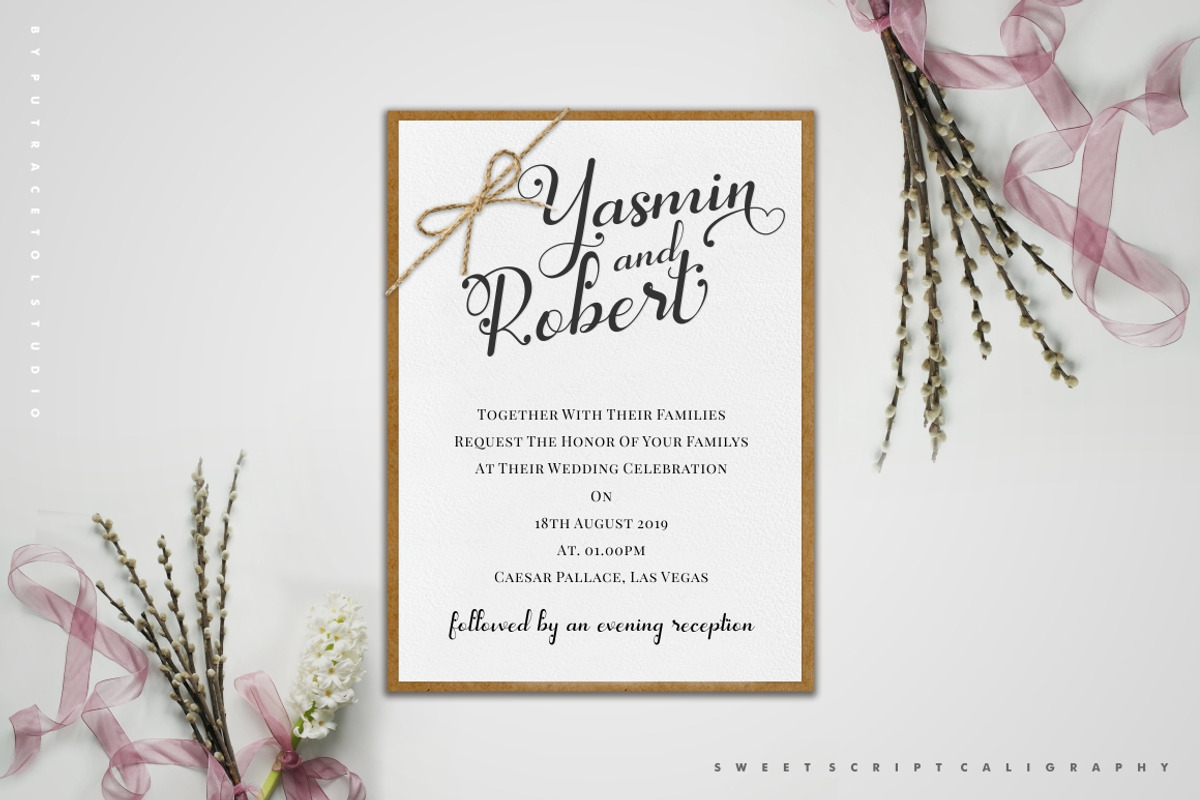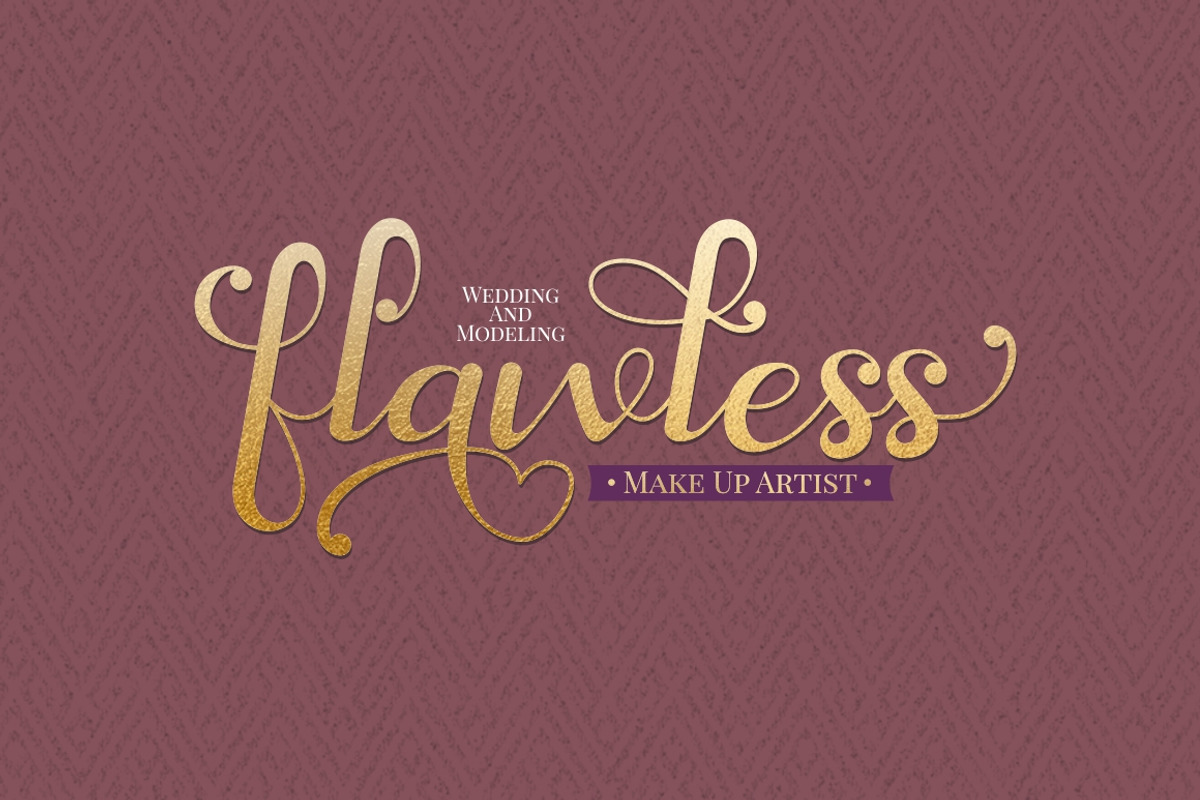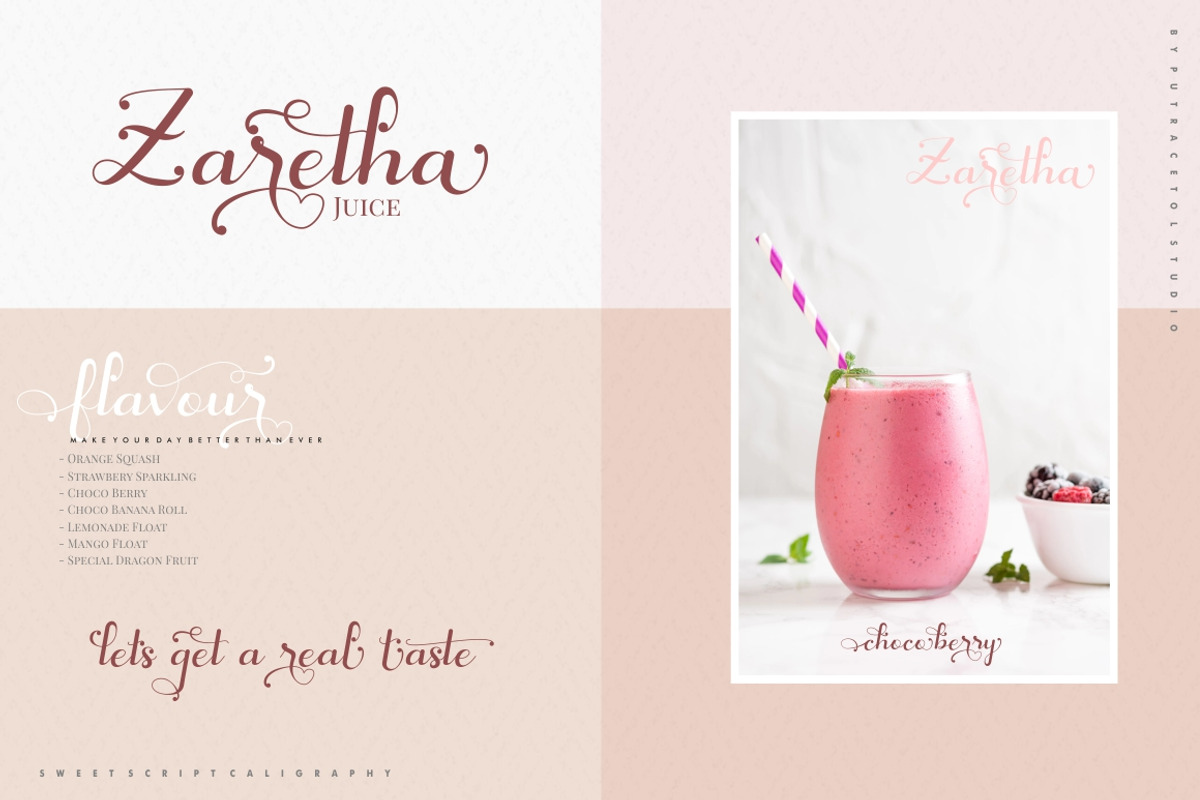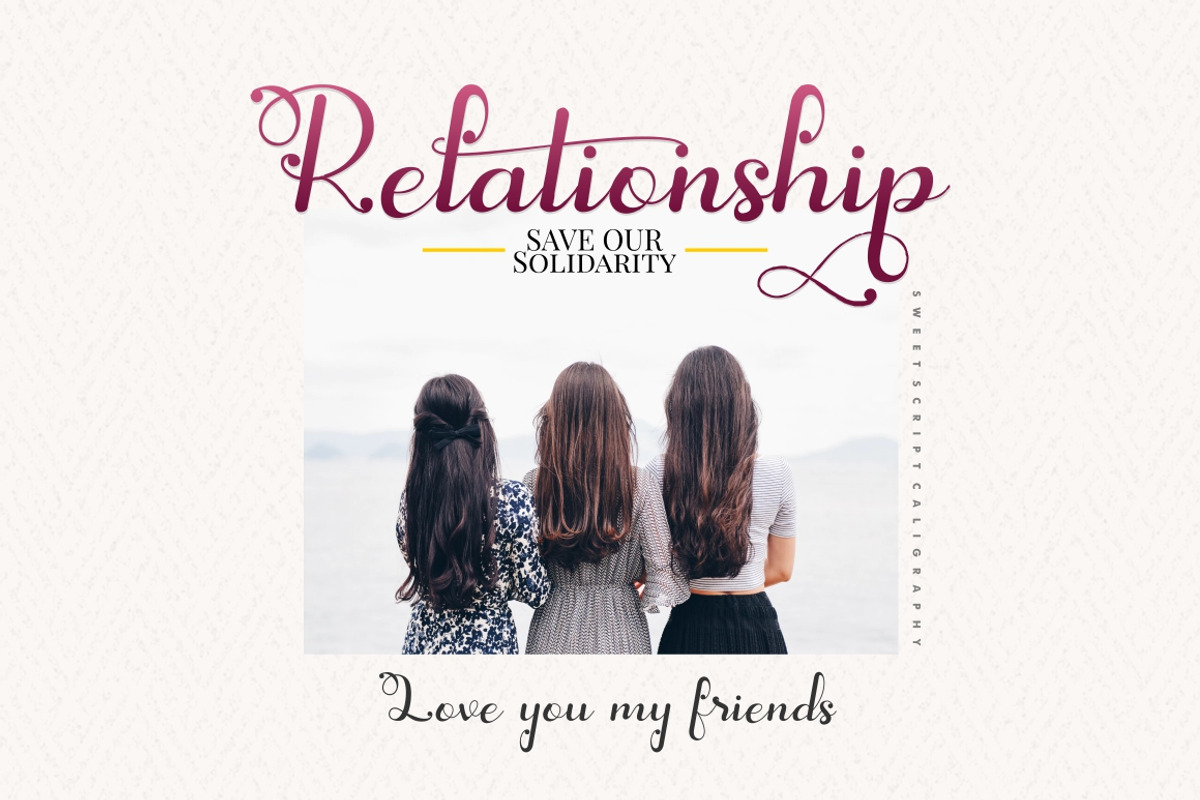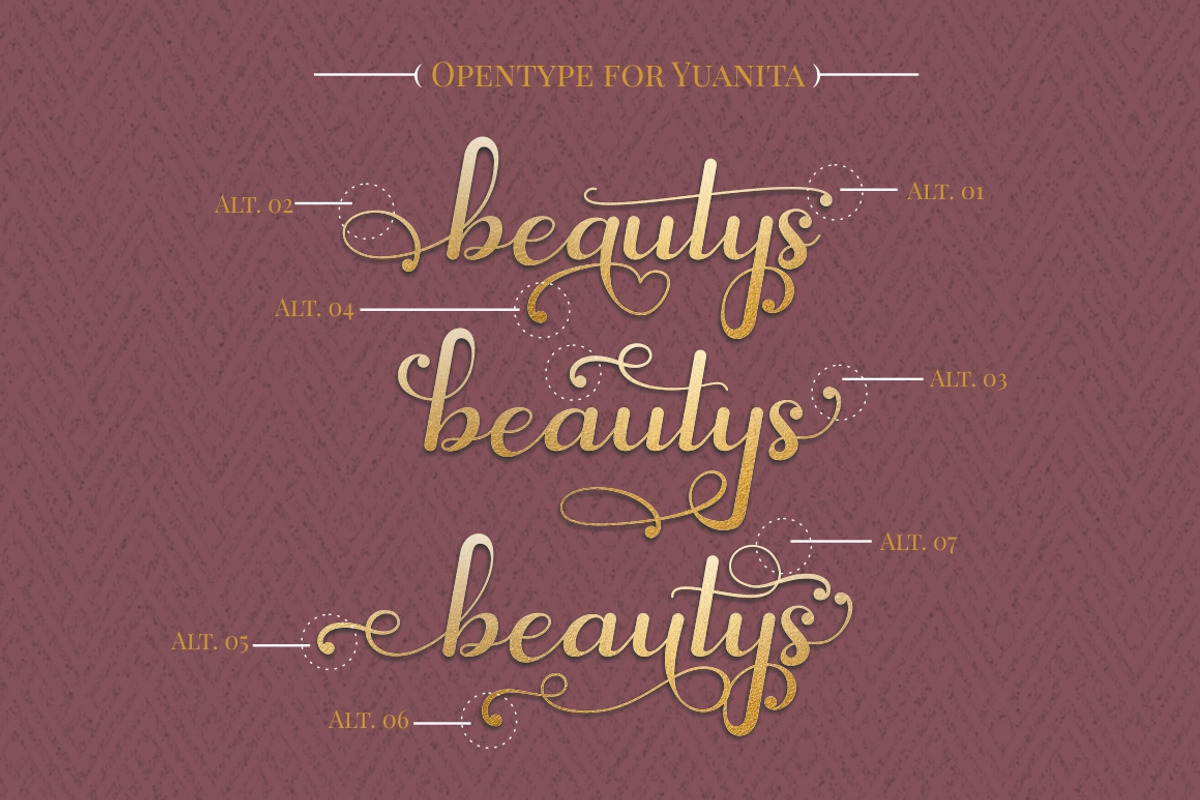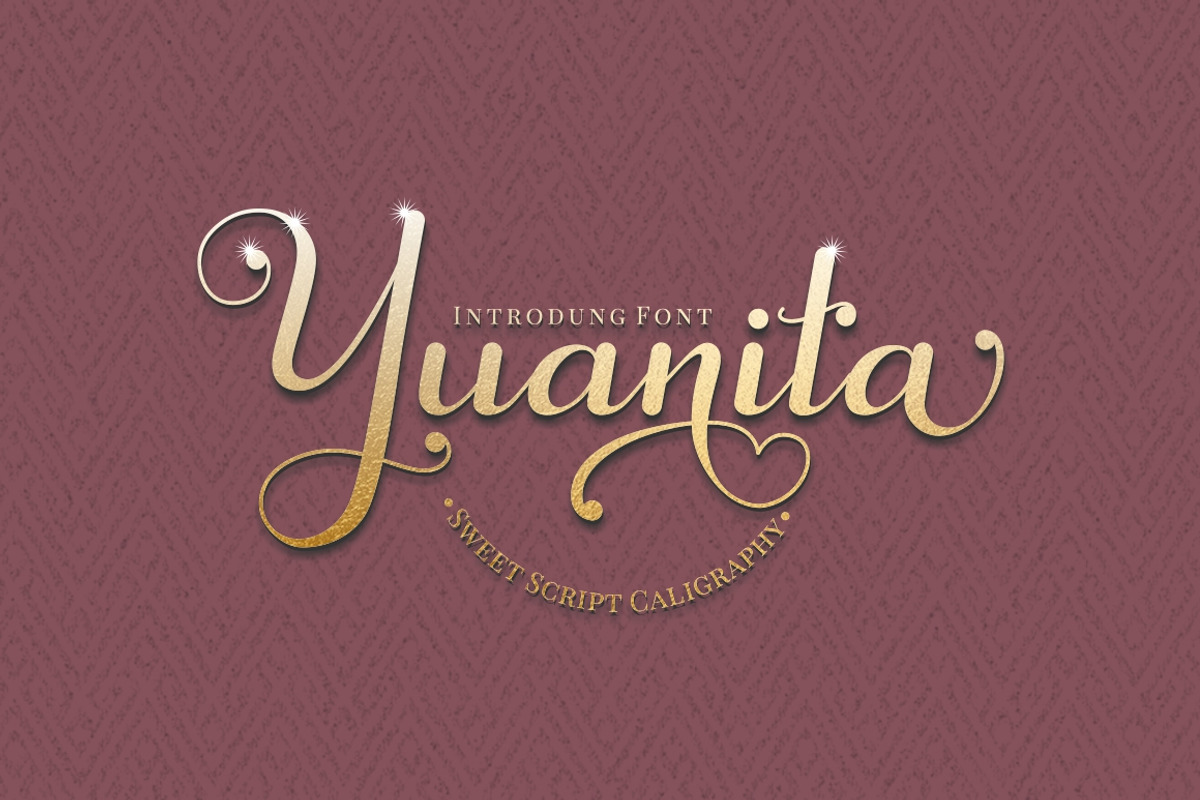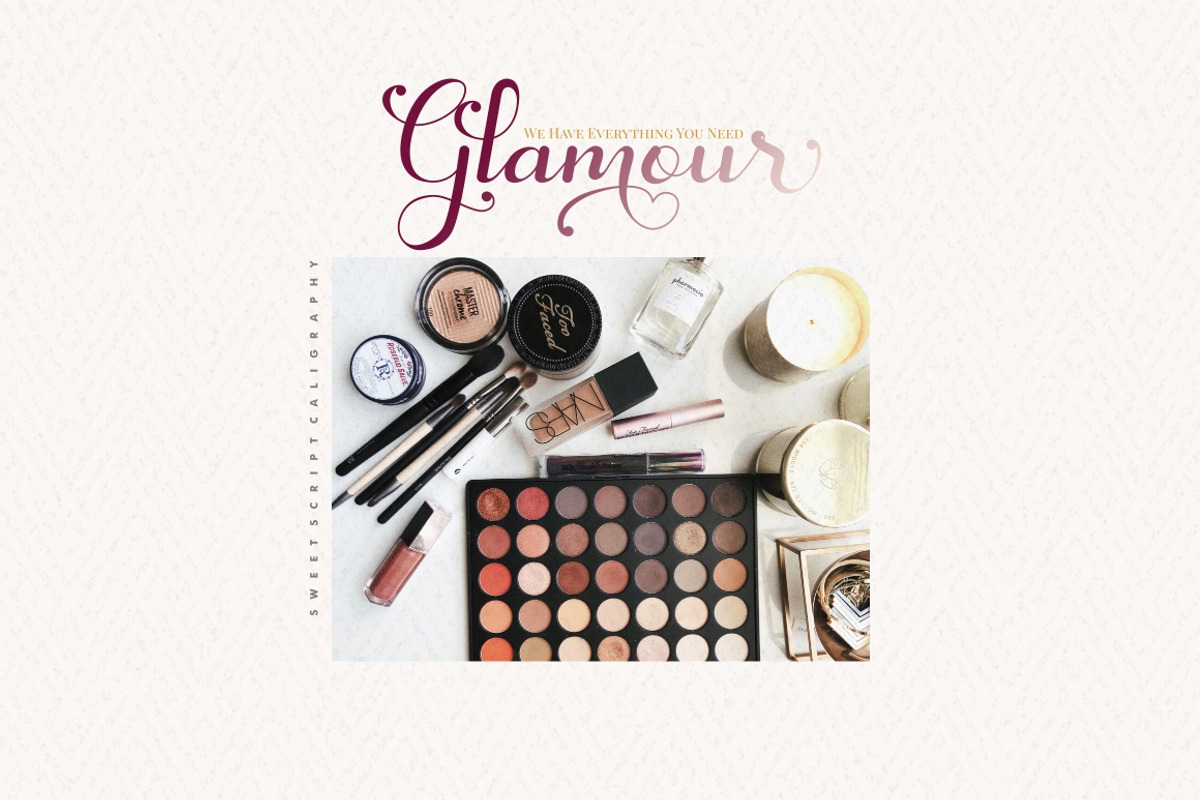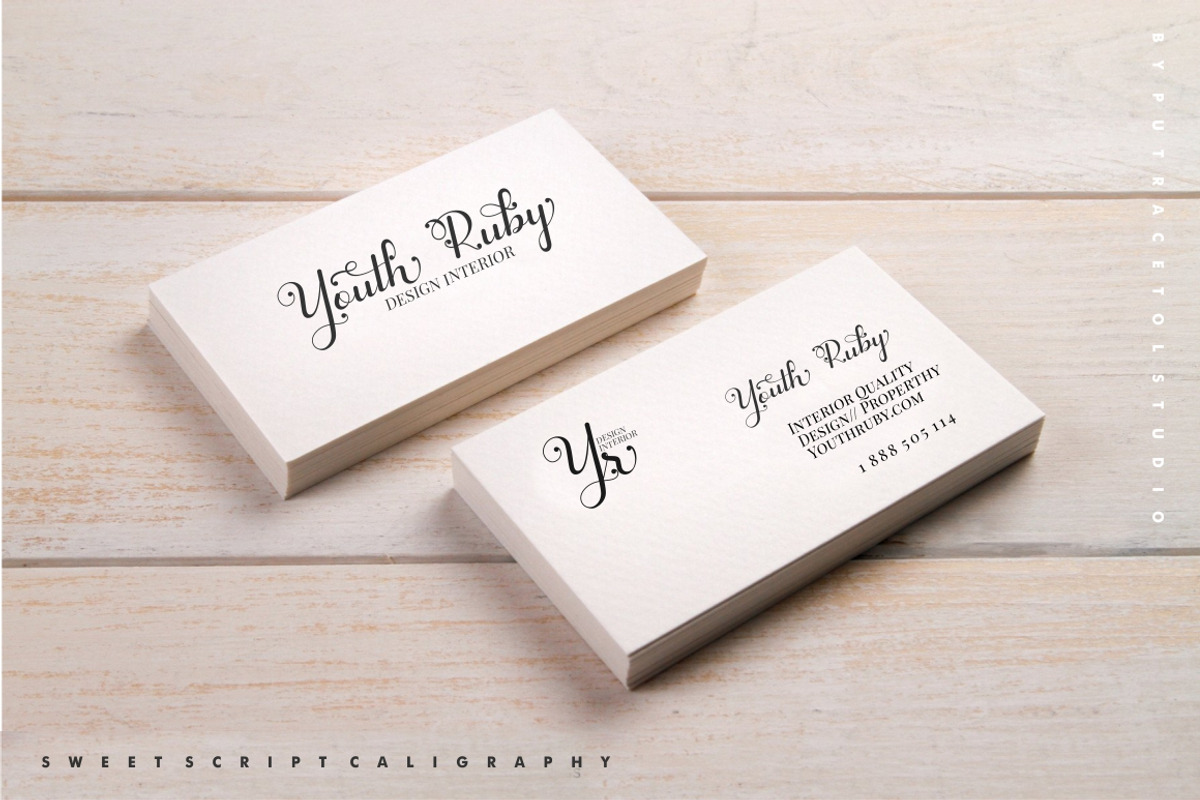
Yuanita - Modern Calligraphy Font
Yuanita is a beautiful modern calligraphy font. A modern script with a handmade calligraphy style. This font is feminime, elegant, messy and modern. Yuanita perfect for wedding event, anniversary, birthday,greeting cards, logotype, branding, wedding invite and card, elegant logo, poster, packaging, stationery, website, and any other projects requiring a handwritten and luxurious touch.
Come with open type feature with a lot of alternates, its help you to make great lettering. This font is also support multi language.